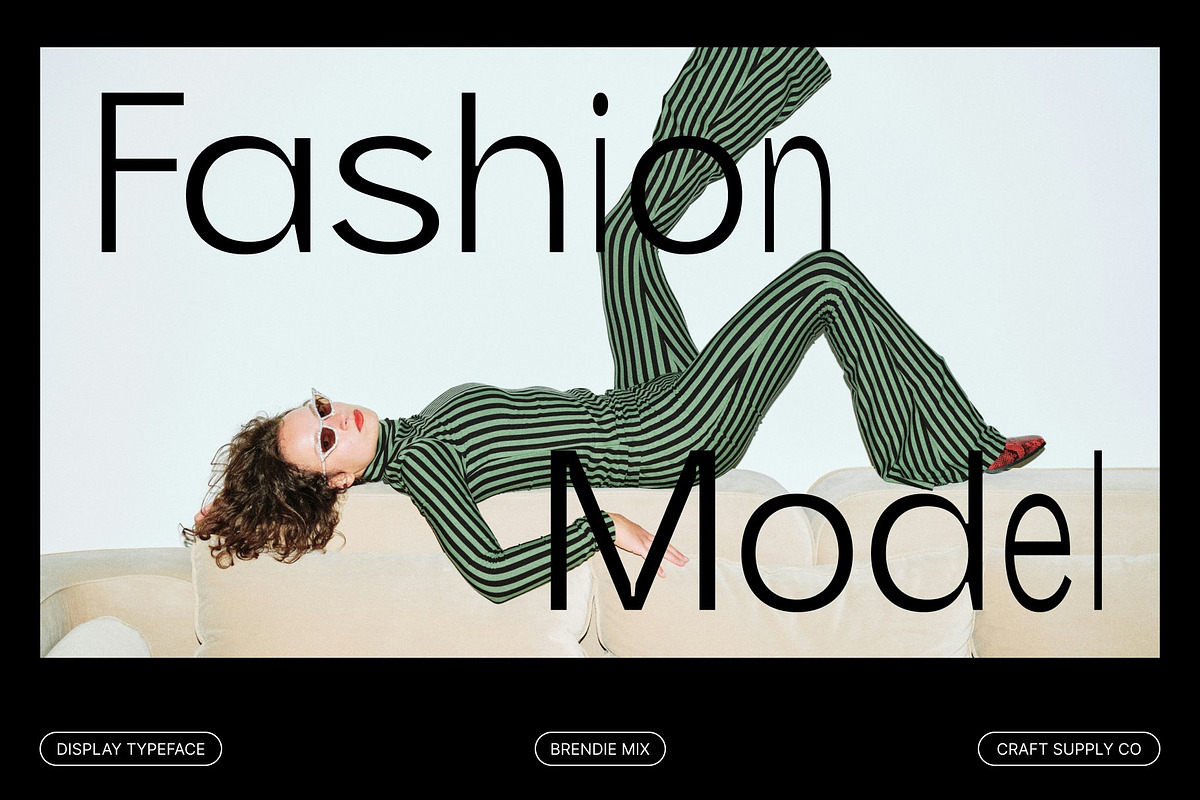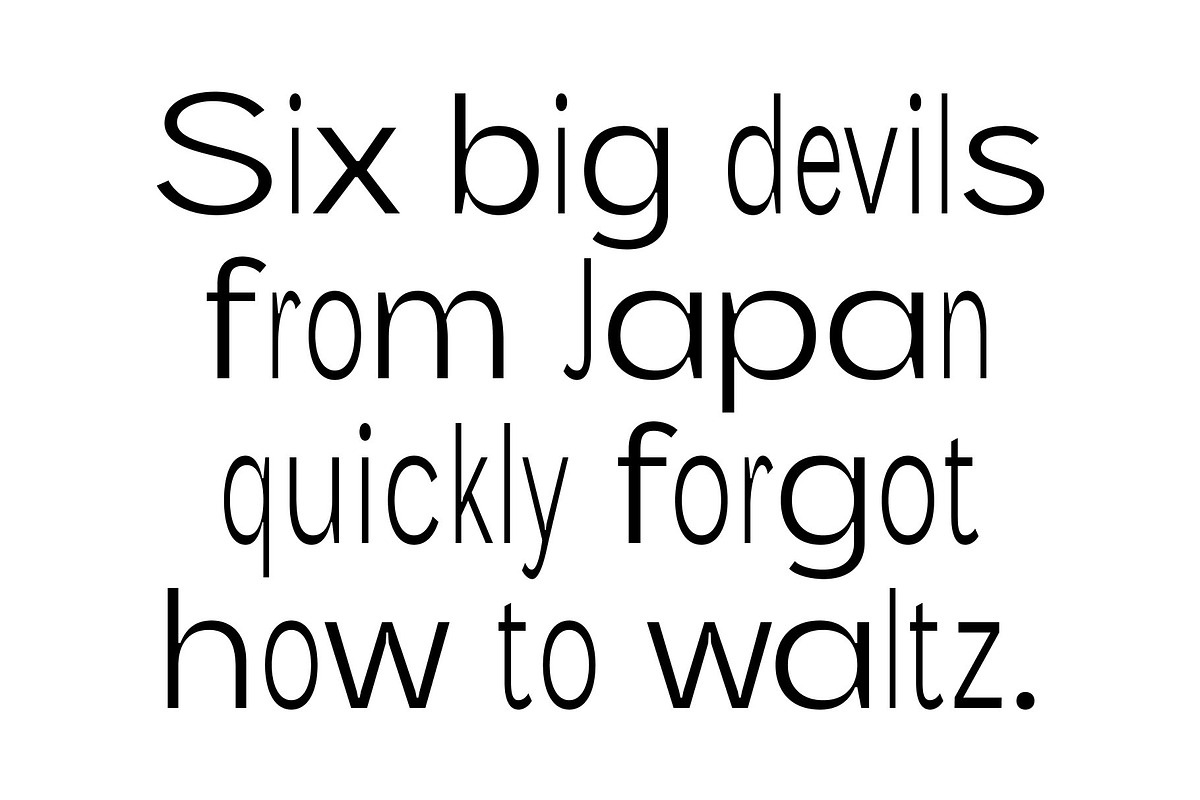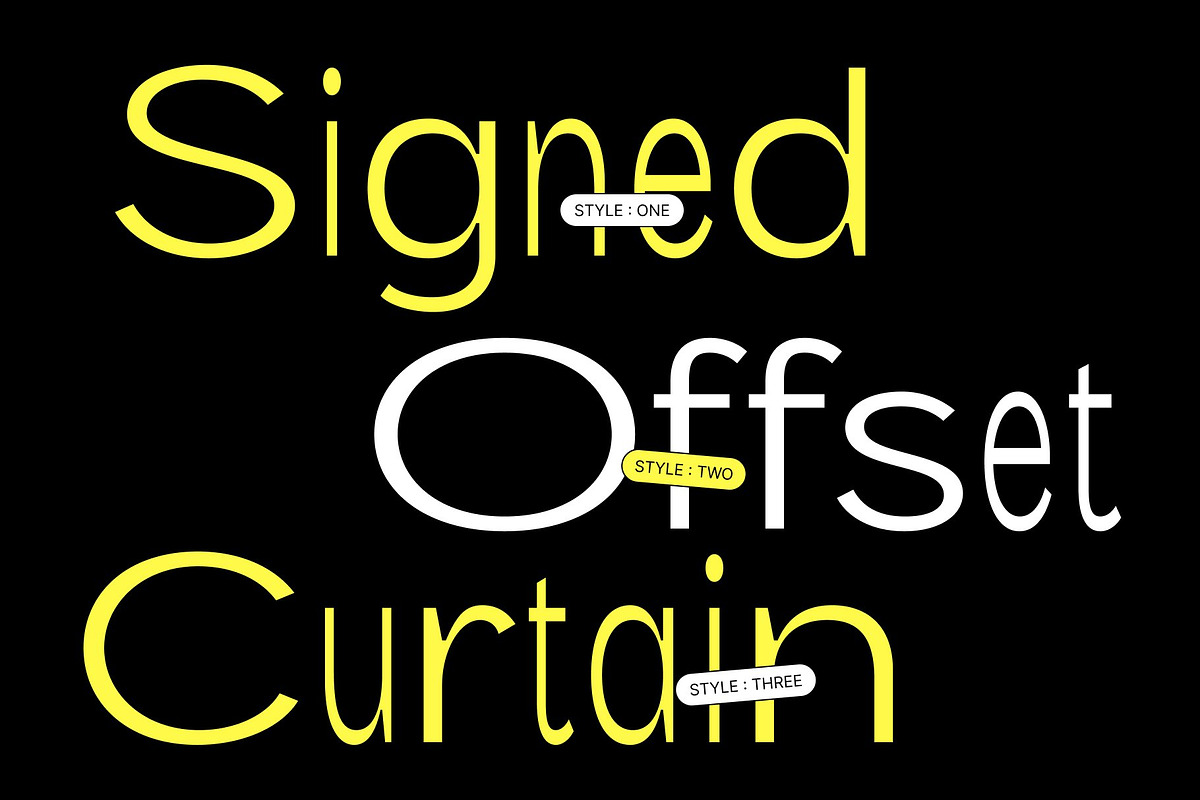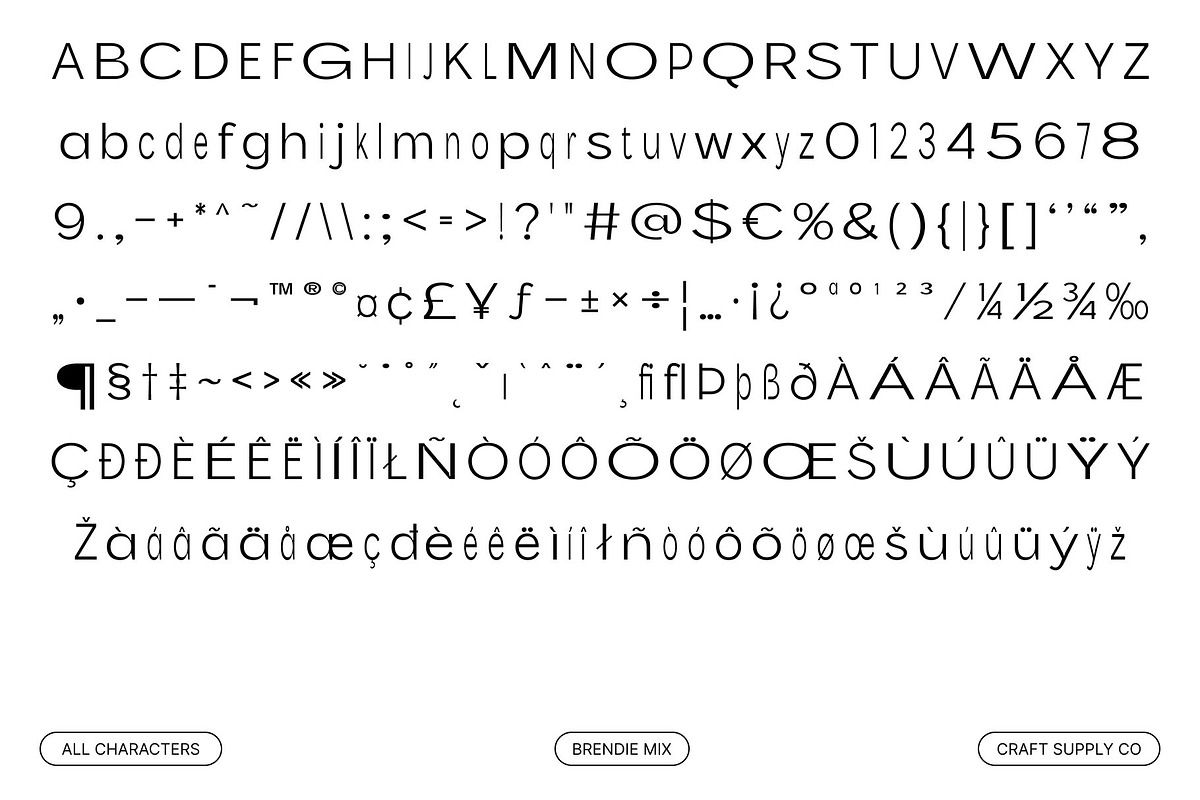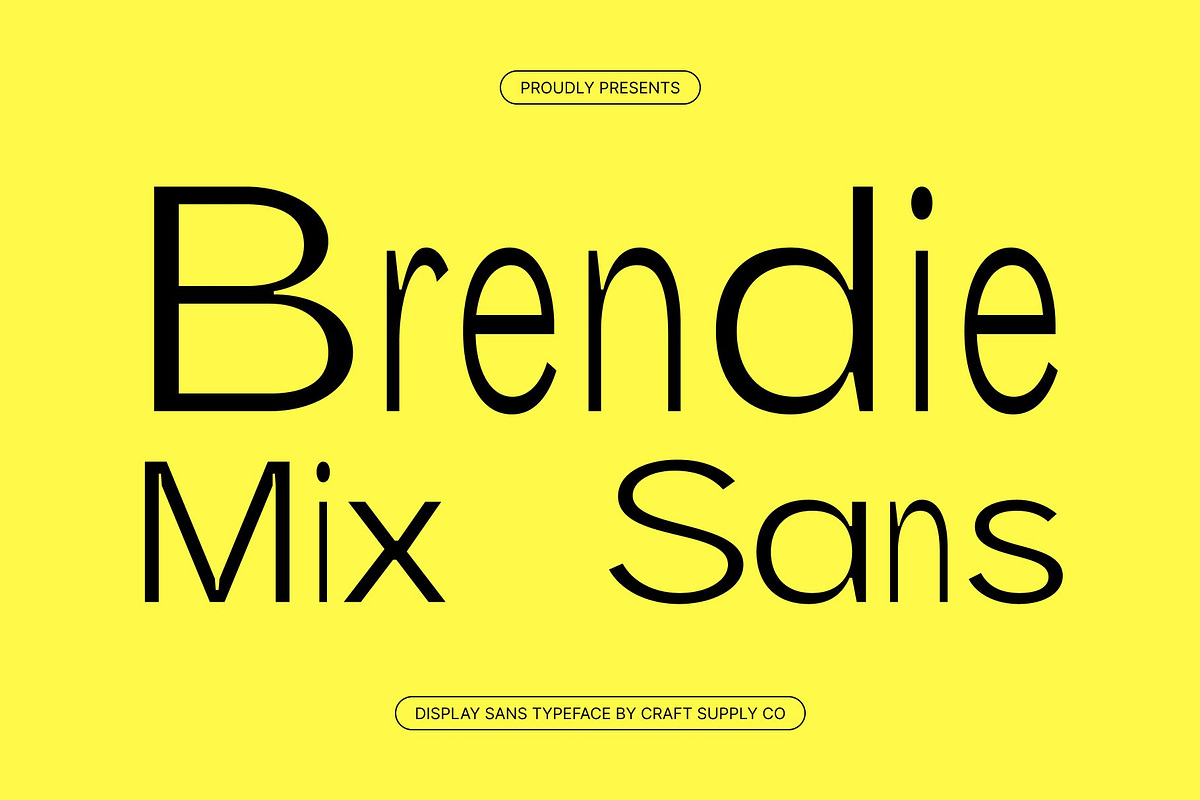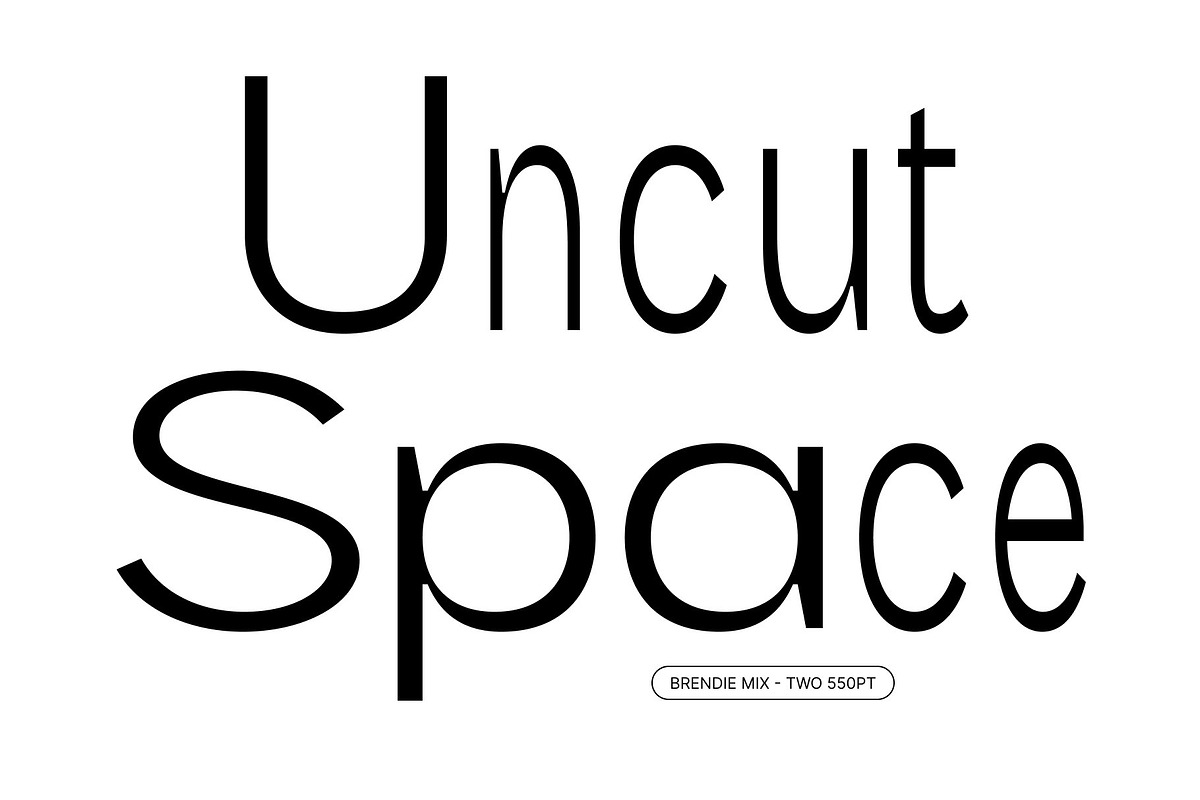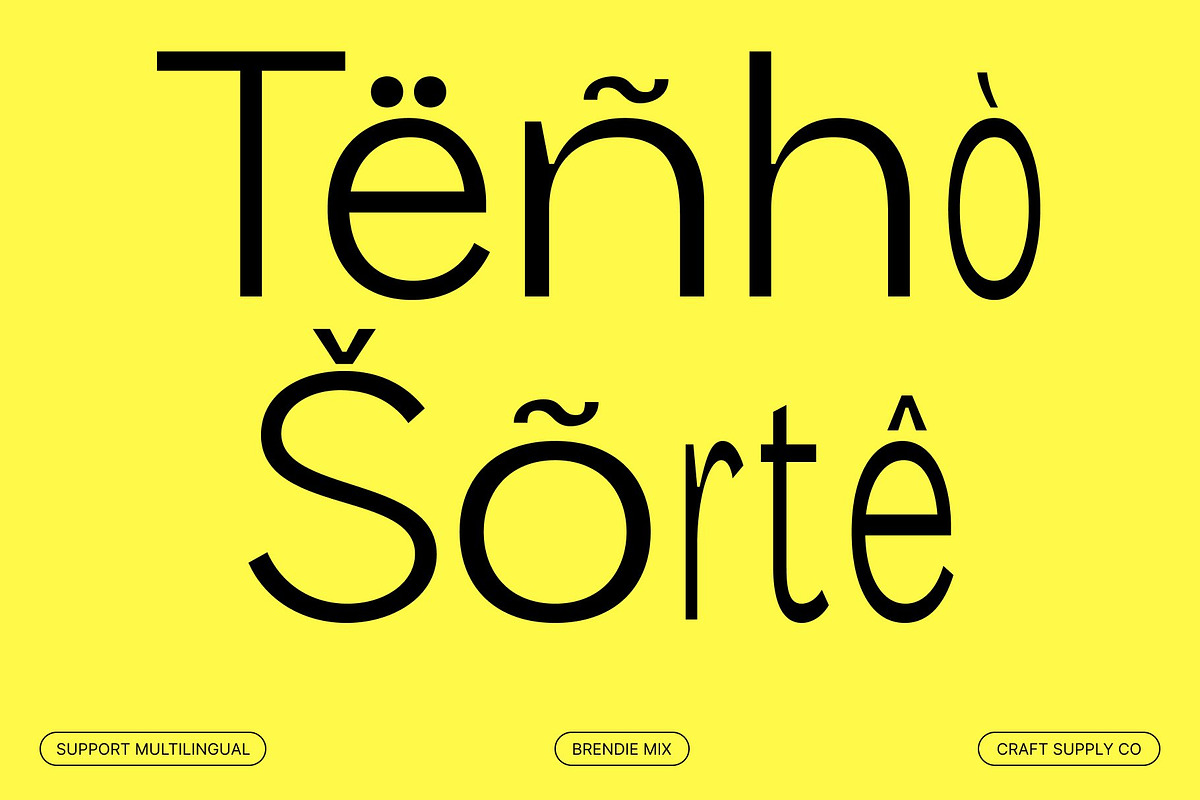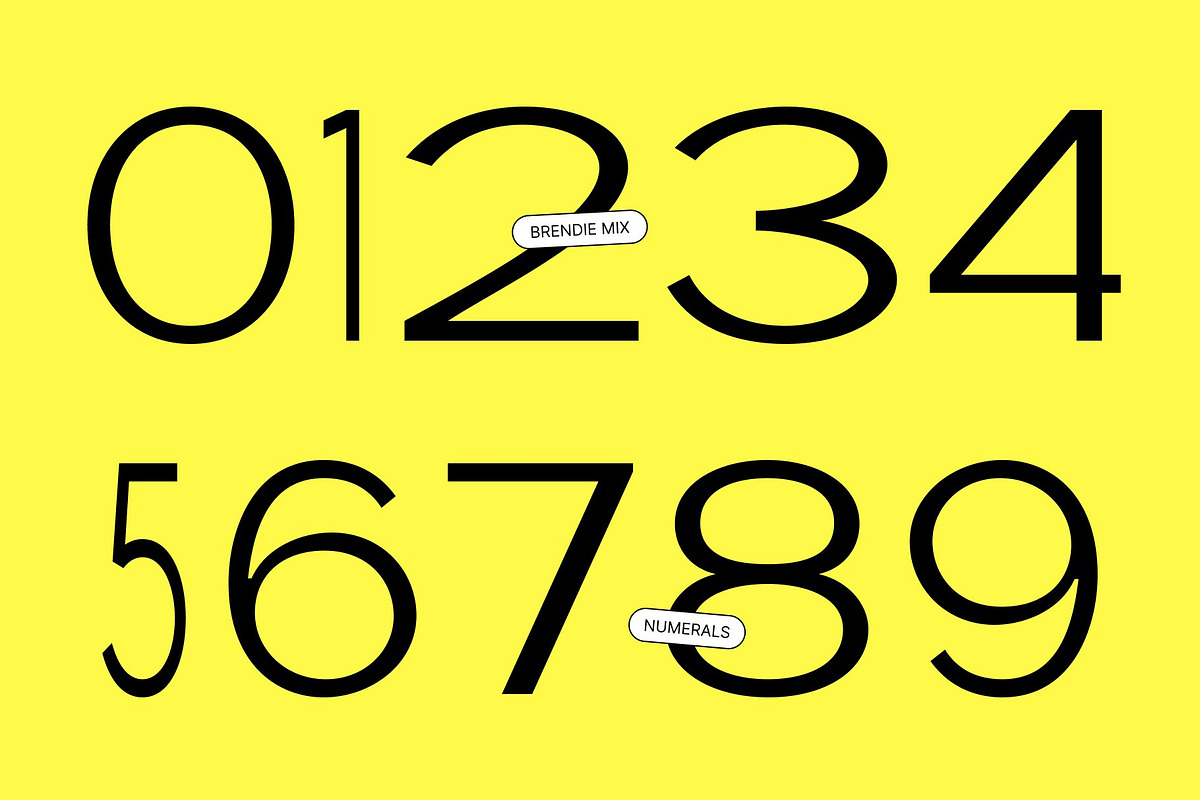
Brendie Mix
Brendie Mix – Modern Sans Serif Font: Professional Clarity with Contemporary Style
Modern Sans Serif with Mixed Style Character This is a modern sans serif font designed to deliver professionalism, simplicity, and contemporary visual appeal. Built with clean shapes and balanced proportions, this typeface introduces a distinctive mixed-style concept that adds subtle contrast and rhythm to every composition. It transforms minimalist typography into a refined design element that feels polished, modern, and highly versatile.
A Balanced Blend of Bold and Regular Letterforms The defining strength of Brendie Mix lies in its thoughtful fusion of bold and regular characters. This combination creates a dynamic typographic hierarchy that improves readability while adding visual interest. The contrast between weights gives layouts a fresh and engaging flow, allowing designs to feel professional without becoming rigid or monotonous.
Clean Geometry with Corporate Elegance This font embraces modern minimalism through sleek geometry and precise construction. Its clean lines communicate clarity, trust, and sophistication, making it an excellent choice for corporate branding and professional communication. The font maintains a smooth and approachable appearance while preserving the authority expected in modern business design.
Perfect for Branding, Websites, and Professional Media From logos and websites to promotional materials and editorial layouts, this font adapts seamlessly across a wide range of design applications. Its excellent readability ensures strong performance in both print and digital media, while its contemporary style keeps projects looking fresh and relevant.
Brendie Mix One
Brendie Mix Two
Brendie Mix Three